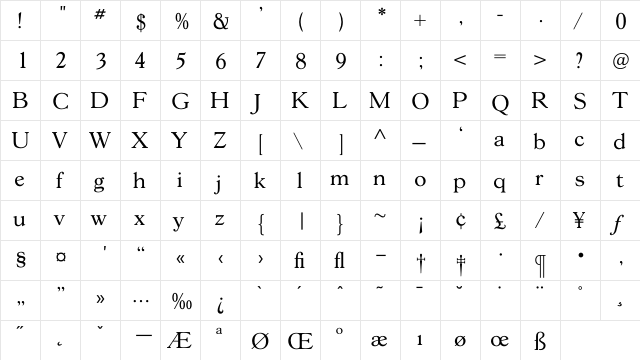
GoudY38Book Regular
Design Context for GoudY38Book Typeface
GoudY38Book is a composed and adaptable typeface that performs quietly and consistently across a wide range of design contexts.